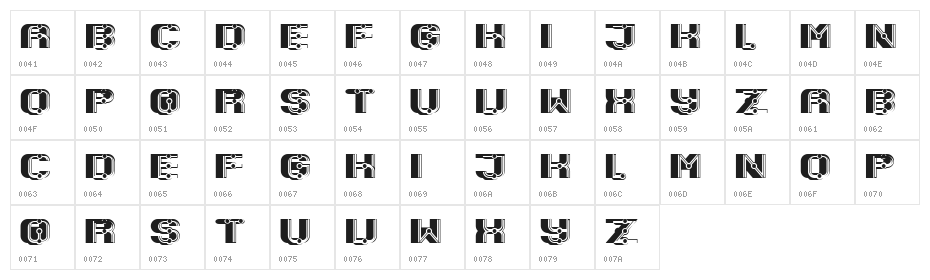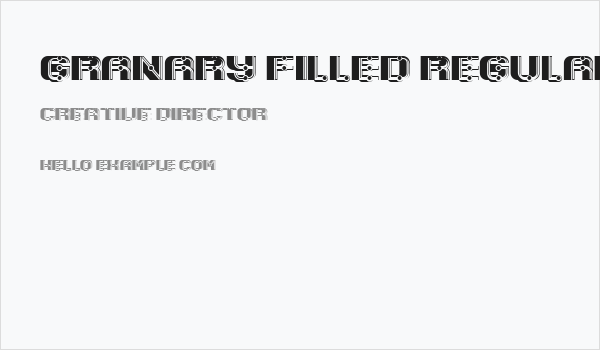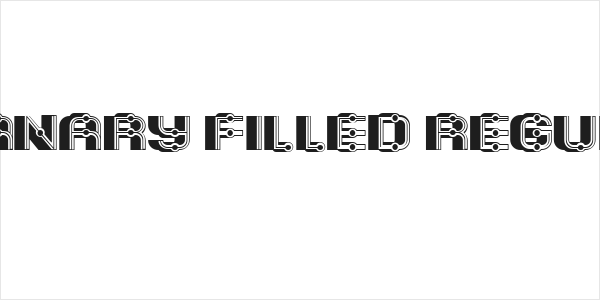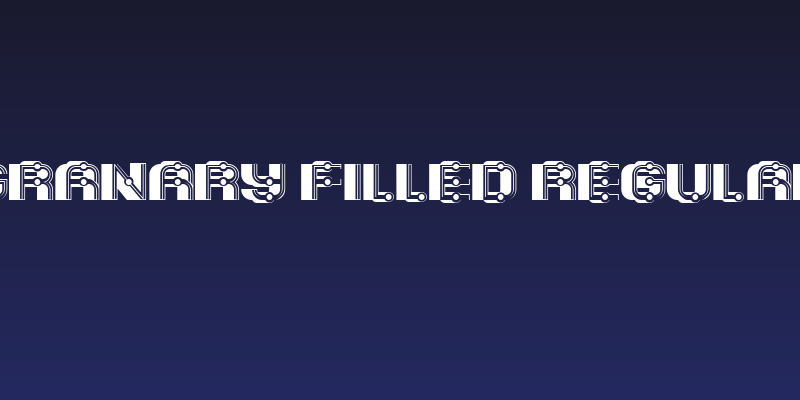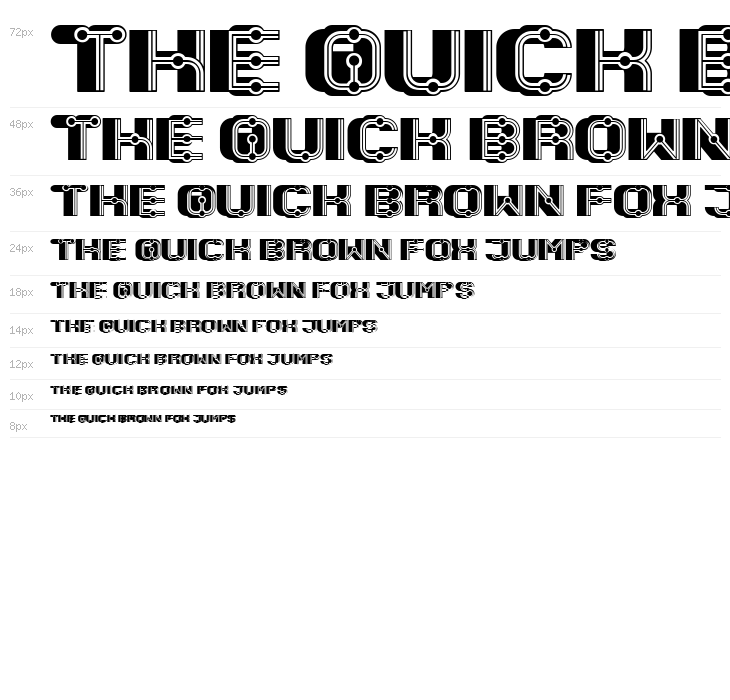
Granary Filled Regular Font
Granary Filled Regular Description
This font features a bold, geometric design with a filled pattern that creates a striking visual impact. The characters are constructed with a combination of solid and outlined elements, giving them a unique, layered appearance. The uppercase letters are particularly eye-catching, with a strong presence that makes them ideal for attention-grabbing headlines or logos. The font's style is modern and decorative, with a playful yet structured aesthetic that stands out in any design. The consistent use of filled patterns within the characters adds depth and dimension, making it suitable for projects that require a bold and distinctive look.
| Proposed Projects | Ideal for branding, poster design, album covers, and any project needing a bold, eye-catching typeface. |